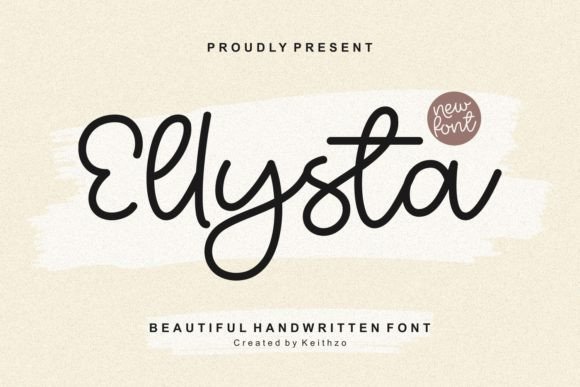
Introducing Ellysta Font: The Epitome of Elegance and Sophistication
In the world of typography, few fonts manage to convey the essence of luxury and refinement as effortlessly as Ellysta Font. This elegant and exquisite handwritten font has been designed to exude a sense of refined beauty and sophistication, making it the perfect choice for high-end design projects. With its flowing lines, delicate curves, and intricate details, Ellysta Font is sure to leave a lasting impression.
Key Features of Ellysta Font
- Elegant and Exquisite Design: Ellysta Font boasts a unique and captivating design that is both elegant and exquisite. Its flowing lines and delicate curves create a sense of refinement and sophistication.
- Intricate Details: The font features intricate details that add a touch of luxury to any design project. These details are carefully crafted to create a sense of opulence and grandeur.
- Graceful and Bold: Despite its delicate appearance, Ellysta Font is both graceful and bold. It can be used to create stunning headings, titles, and text that demands attention.
- Ideal for Luxury Projects: Ellysta Font is perfect for adding a touch of luxury to wedding invitations, product packaging, and other high-end design projects.
Design Applications of Ellysta Font
Ellysta Font is a versatile typeface that can be used in a variety of design applications. Its elegant and sophisticated design makes it perfect for:
- Wedding Invitations: Add a touch of luxury and romance to your wedding invitations with Ellysta Font.
- Product Packaging: Use Ellysta Font to create stunning product packaging that stands out on store shelves.
- Logos and Branding: Create a lasting impression with Ellysta Font by using it for logos and branding projects.
- Advertising and Marketing: Use Ellysta Font to create eye-catching advertising and marketing materials that demand attention.
- Stationery and Greeting Cards: Add a touch of elegance and sophistication to your stationery and greeting cards with Ellysta Font.
Typography Tips for Using Ellysta Font
To get the most out of Ellysta Font, here are some typography tips to keep in mind:
- Use it as a Headline Font: Ellysta Font is perfect for use as a headline font. Its bold and elegant design makes it perfect for grabbing attention.
- Pair it with a Simple Font: Pair Ellysta Font with a simple font to create a striking contrast. This will help to make your design stand out.
- Experiment with Font Sizes: Don’t be afraid to experiment with different font sizes. Ellysta Font looks great in large and small sizes.
- Use it for Body Text: While Ellysta Font is perfect for headlines, it can also be used for body text. Its elegant design makes it easy to read.
The Benefits of Using Ellysta Font
There are many benefits to using Ellysta Font in your design projects. Here are a few:
- Unique and Eye-Catching Design: Ellysta Font has a unique and eye-catching design that will make your design projects stand out.
- High-Quality Typography: Ellysta Font is a high-quality typeface that is designed to produce crisp and clear text.
In conclusion, Ellysta Font is a stunning and elegant handwritten font that is perfect for high-end design projects. Its flowing lines, delicate curves, and intricate details create a sense of refined beauty and sophistication. With its PUA encoding and ease of use, Ellysta Font is a must-have for any designer looking to add a touch of luxury to their design projects.